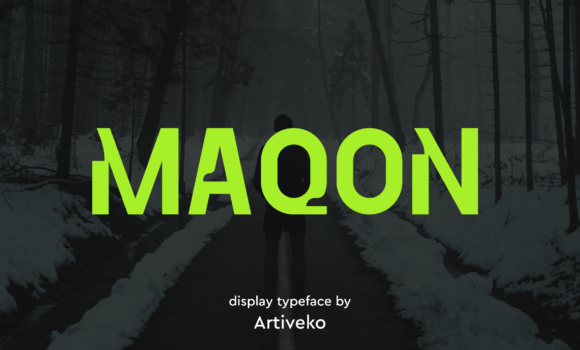
maqon
Maqon Font – Free Download Introduction to Maqon Font Maqon is a distinctive sans serif font that blends geometric precision with artistic curves, resulting in a font that feels both modern and uniquely expressive. 📸 Preview Gallery 6 images 📌